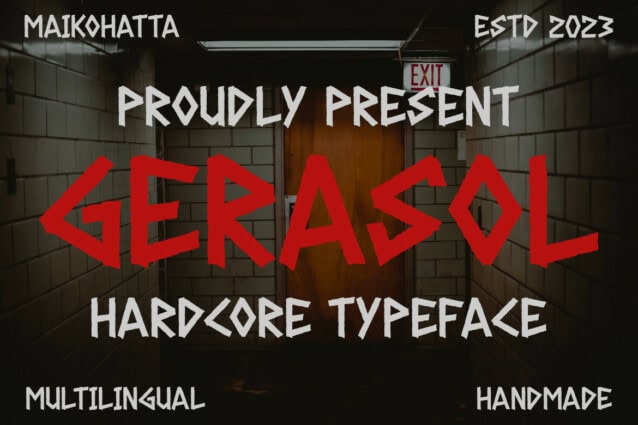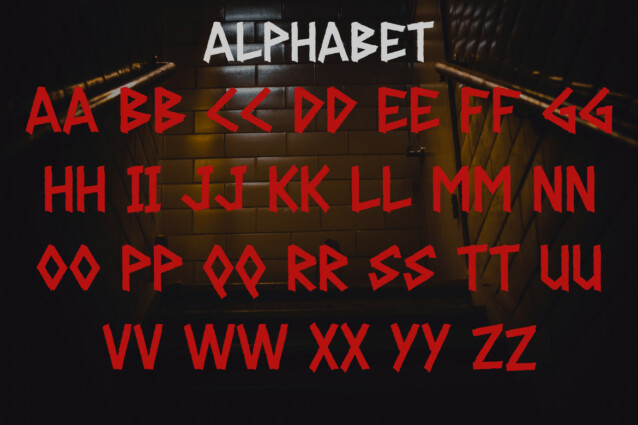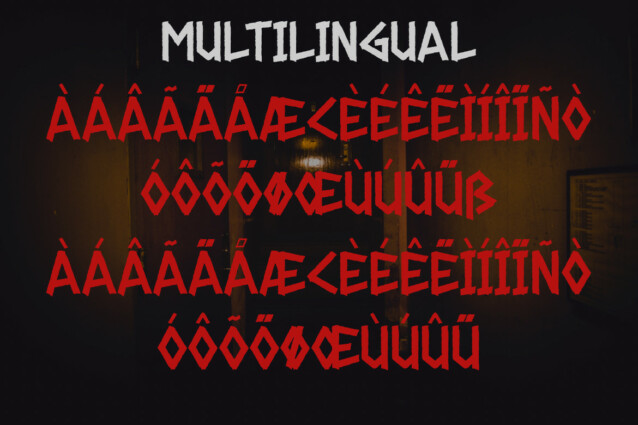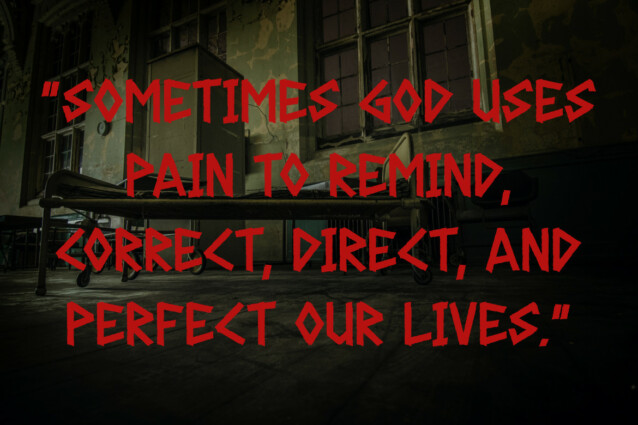
Gerasol Display Font
Gerasol Display Font is a type of lettering with a distinctive and strong appearance, inspired by medieval writing styles. Its main features include upright and bold letterforms with sharp vertical lines, creating a rigid and geometric look. This font exudes an elegant, mysterious, and powerful charm, making it suitable for adding a historical touch to modern designs such as logos, posters, or book covers.